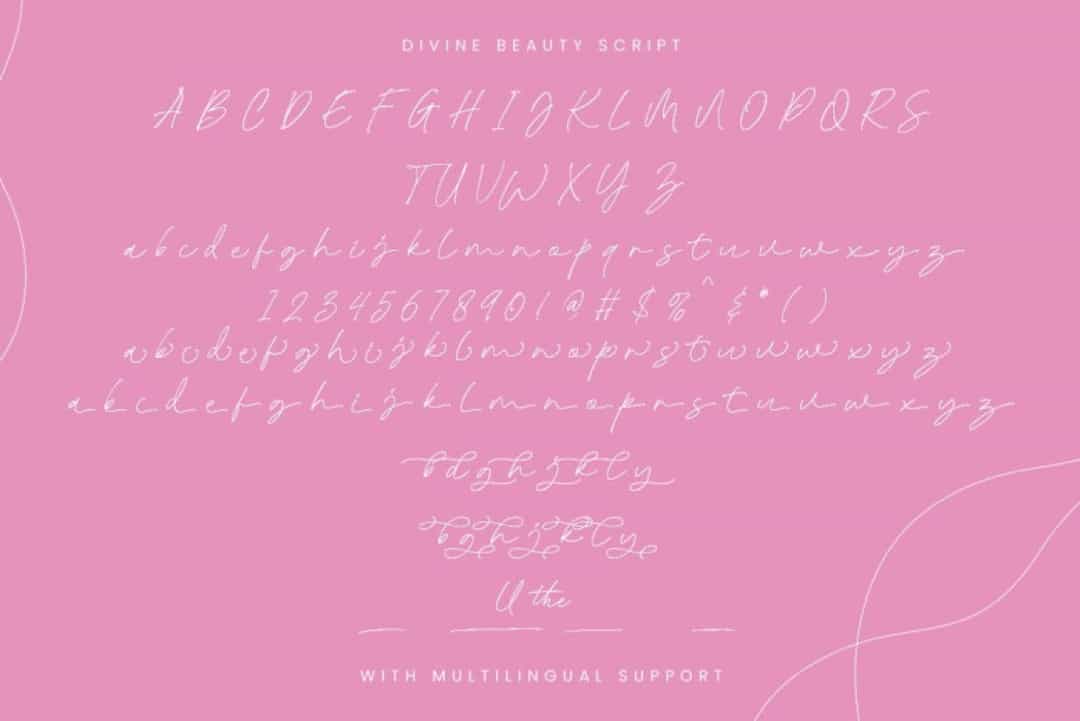
Divine Beauty by Letterhend Studio is an elegant font designed with both sans-serif and script font styles in mind, offering users the ability to create stylish yet elegant designs with ease. Characterized by contemporary elegance and feminine grace, Divine Beauty makes an impactful statement!